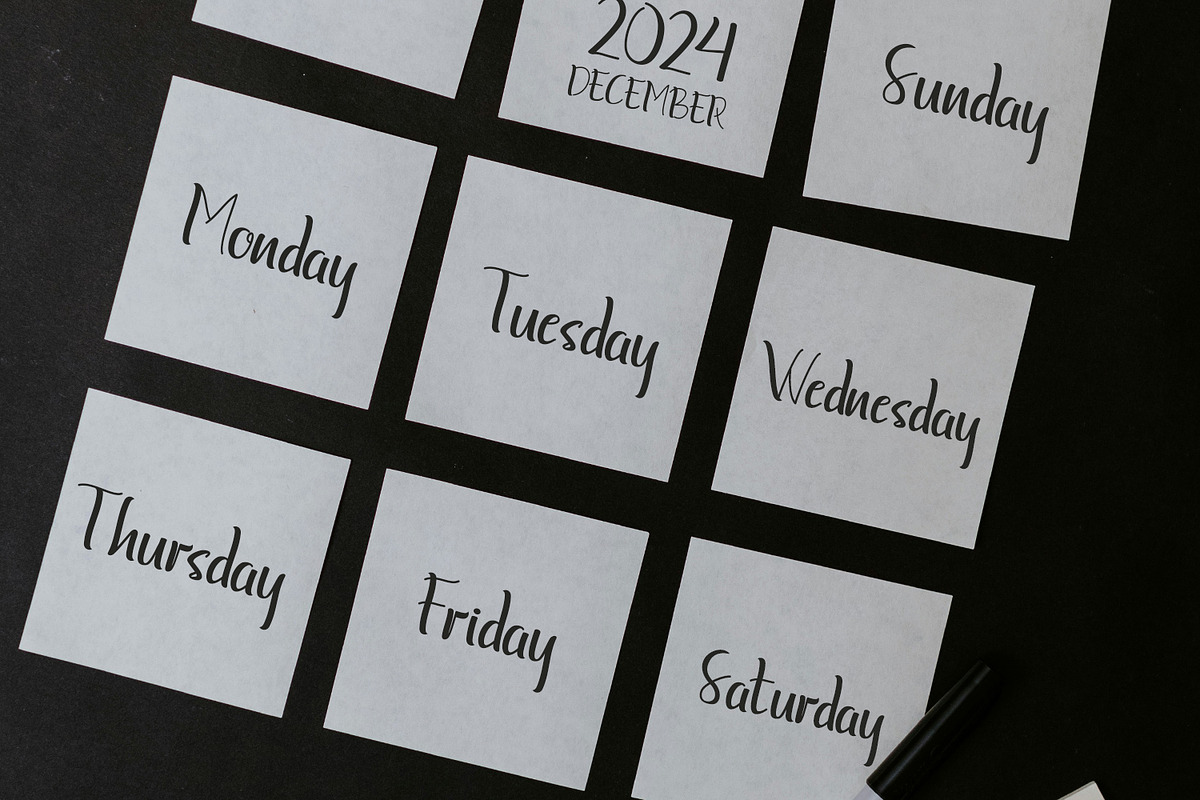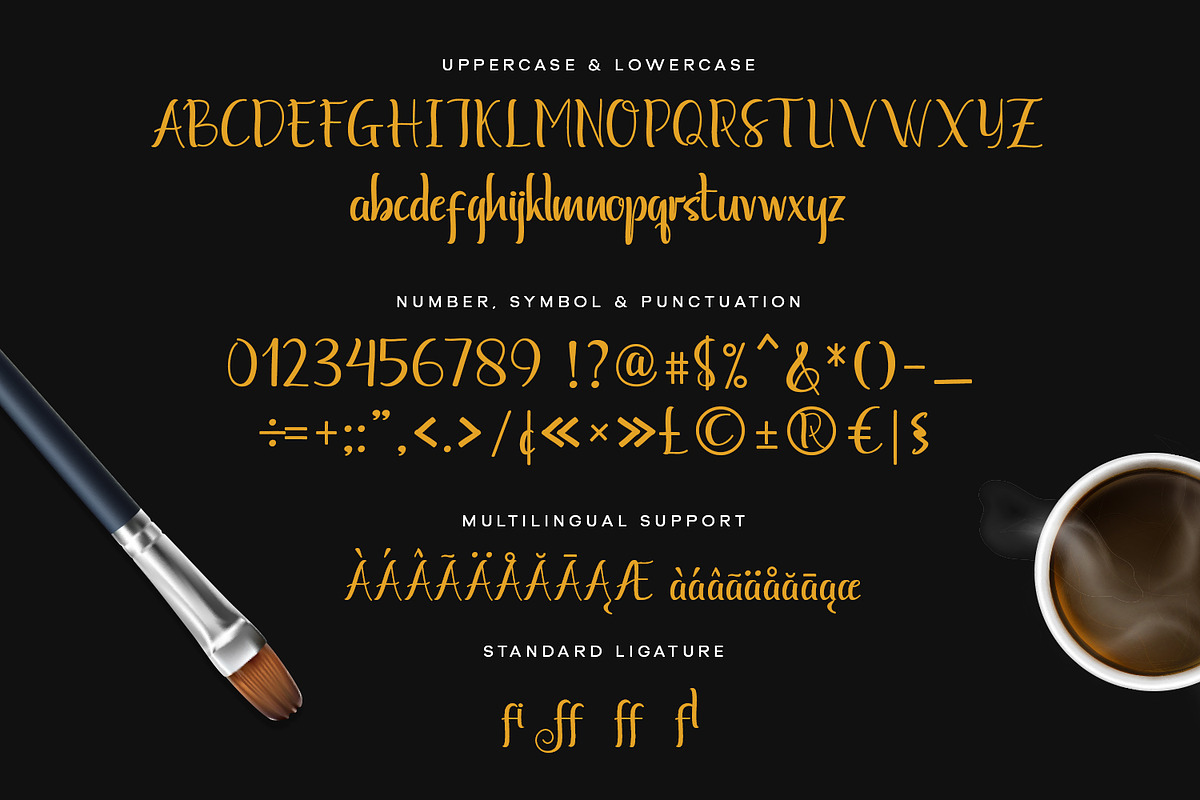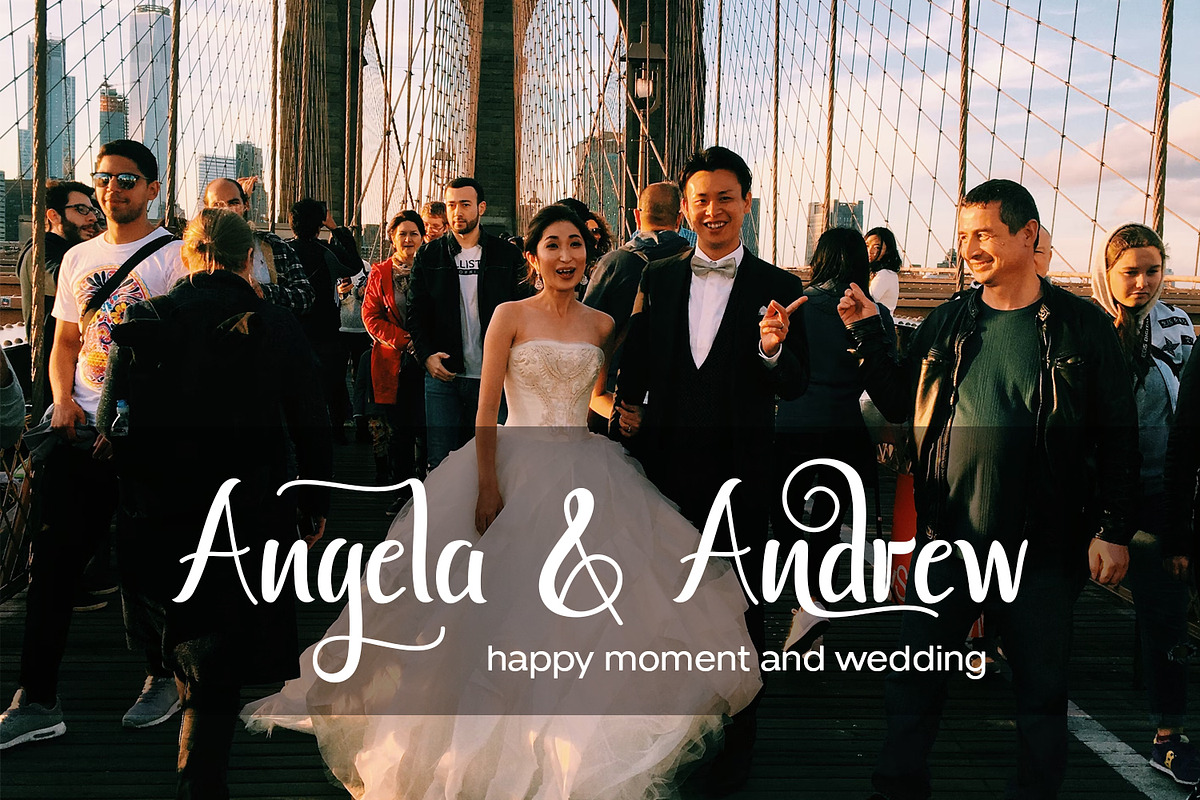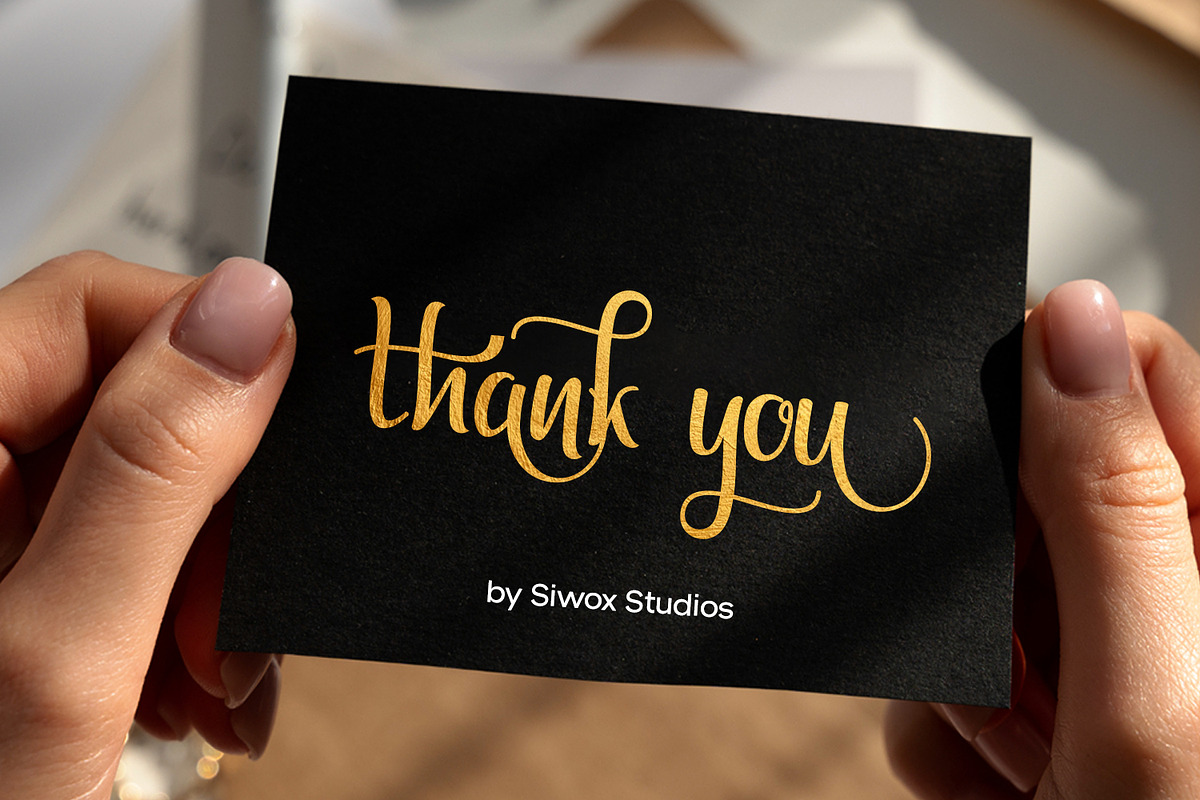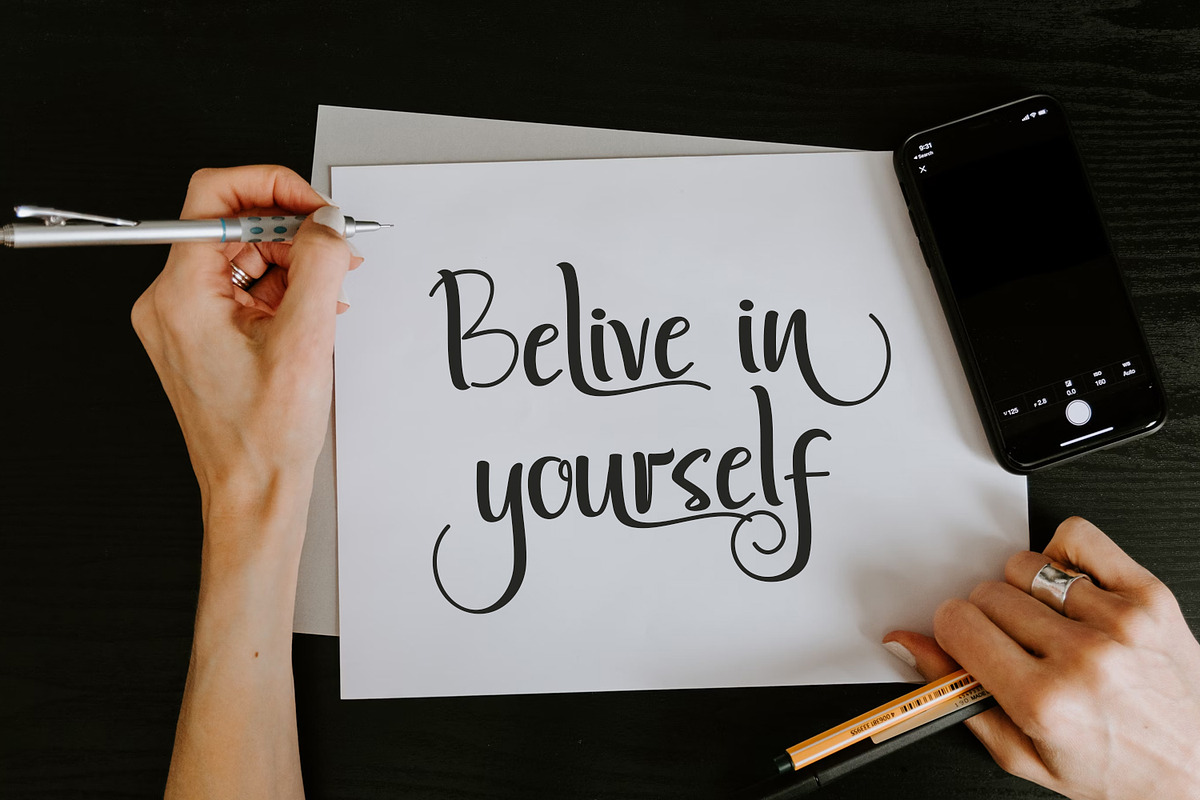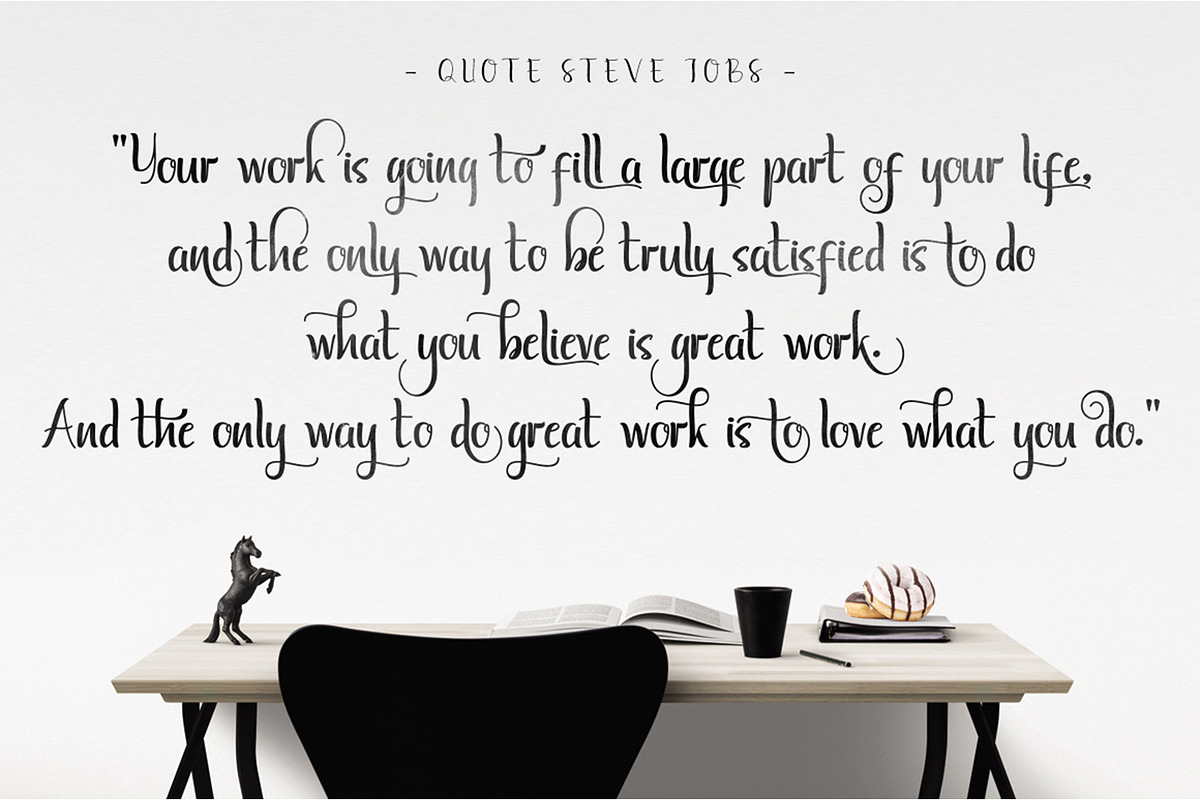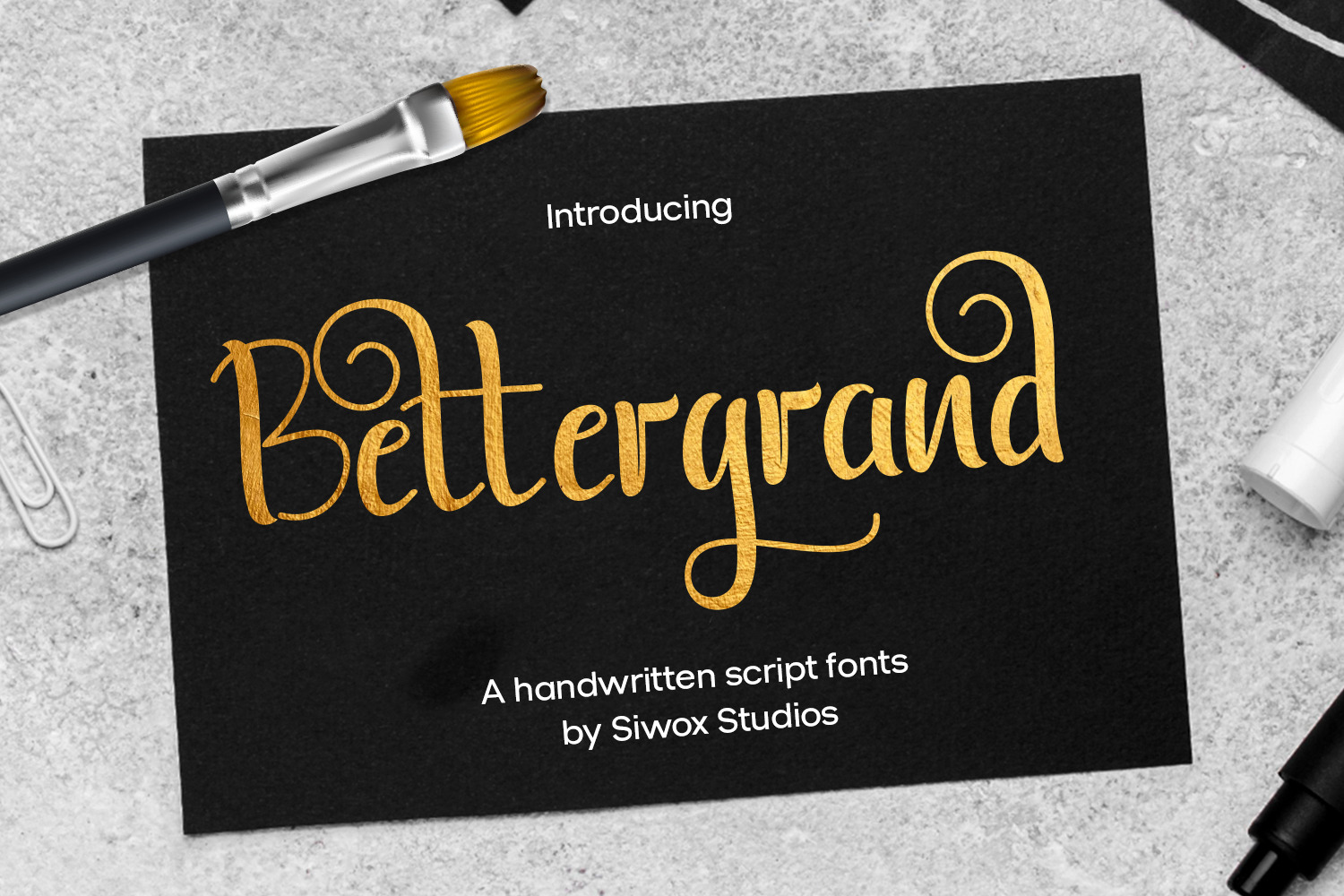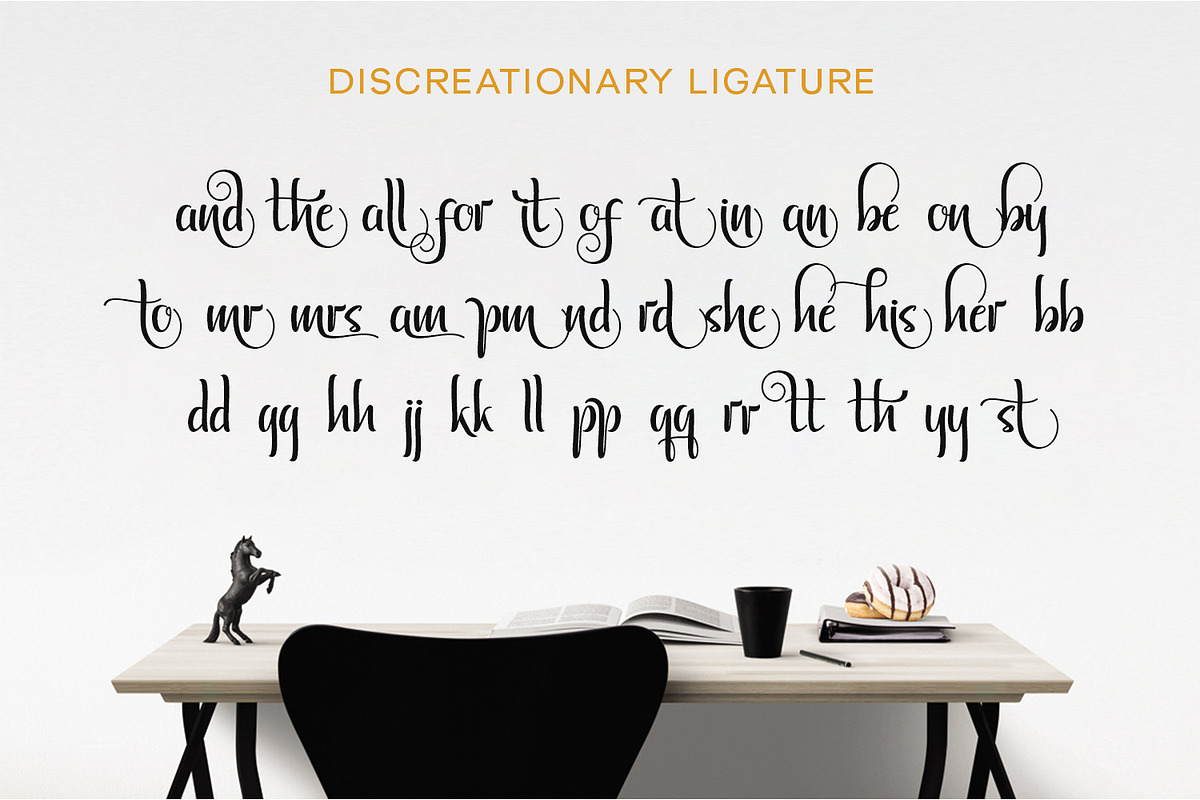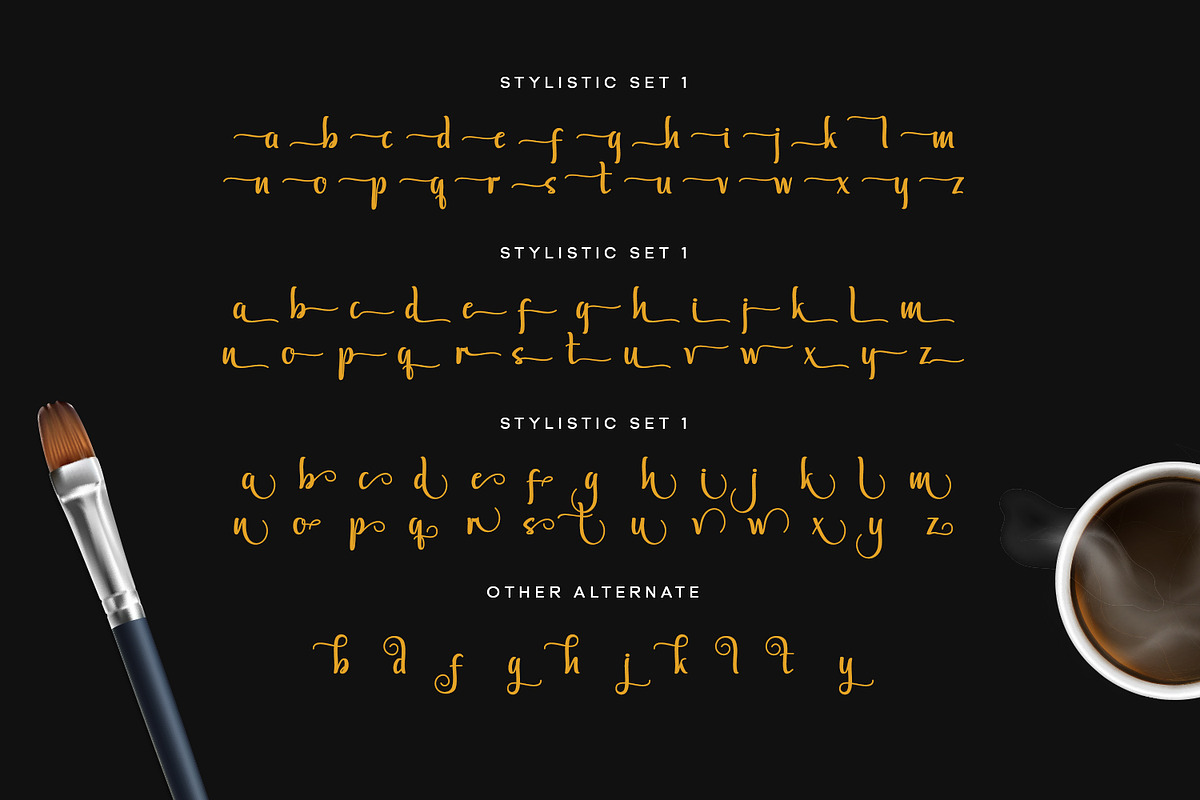
Bettergrand - a handwritten fonts
Unveil the stylish and versatile Bettergrand, a handwritten font that exudes casual elegance. With an impressive array of 400+ glyphs, this font is your creative companion for creating unique designs. Among its many features, this font also contains keywords that serve as the perfect ingredient to add an element of fun and touch to your creations.
- Standard Uppercase & Lowercase
- Number, Symbol & Punctuation
- Standard Ligature
- Discreationary Ligature
- Stylistic Alternate
- Stylistic Set 1 (ss01)
- Stylistic Set 2 (ss02)
- Stylistic Set 3 (ss03)